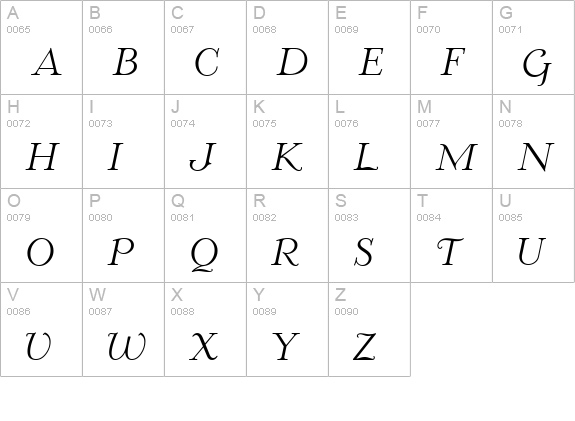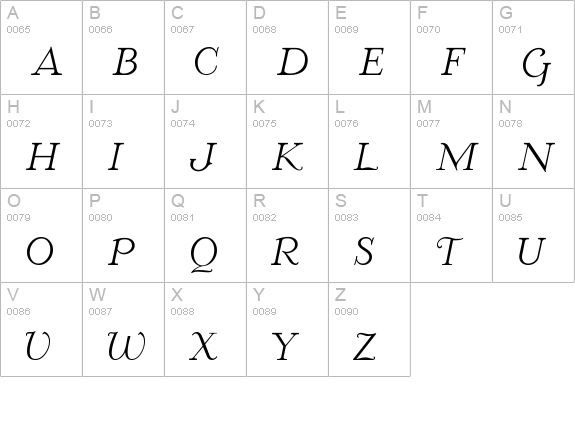
McKenna Handletter NF Roman Italic is a distinctive, italic variant in the McKenna typeface family \xE2\x80\x94 well suited to design and typography projects.
McKenna Handletter NF Roman Italic font is a beautifully crafted typeface that exudes elegance and sophistication. With its flowing curves and distinctive letterforms, this font is perfect for adding a touch of charm to any design project. The Roman Italic style adds a classic touch, making it ideal for projects that require a refined and timeless look. Best of all, McKenna Handletter NF Roman Italic font is available for free download at FontsMarket.com. Whether you're working on invitations, branding materials, or any other creative project, this font is sure to make a statement. Don't miss out on the opportunity to enhance your designs with this stunning font, all at no cost to you. Download McKenna Handletter NF Roman Italic font today and elevate your projects with its unique charm and elegance.